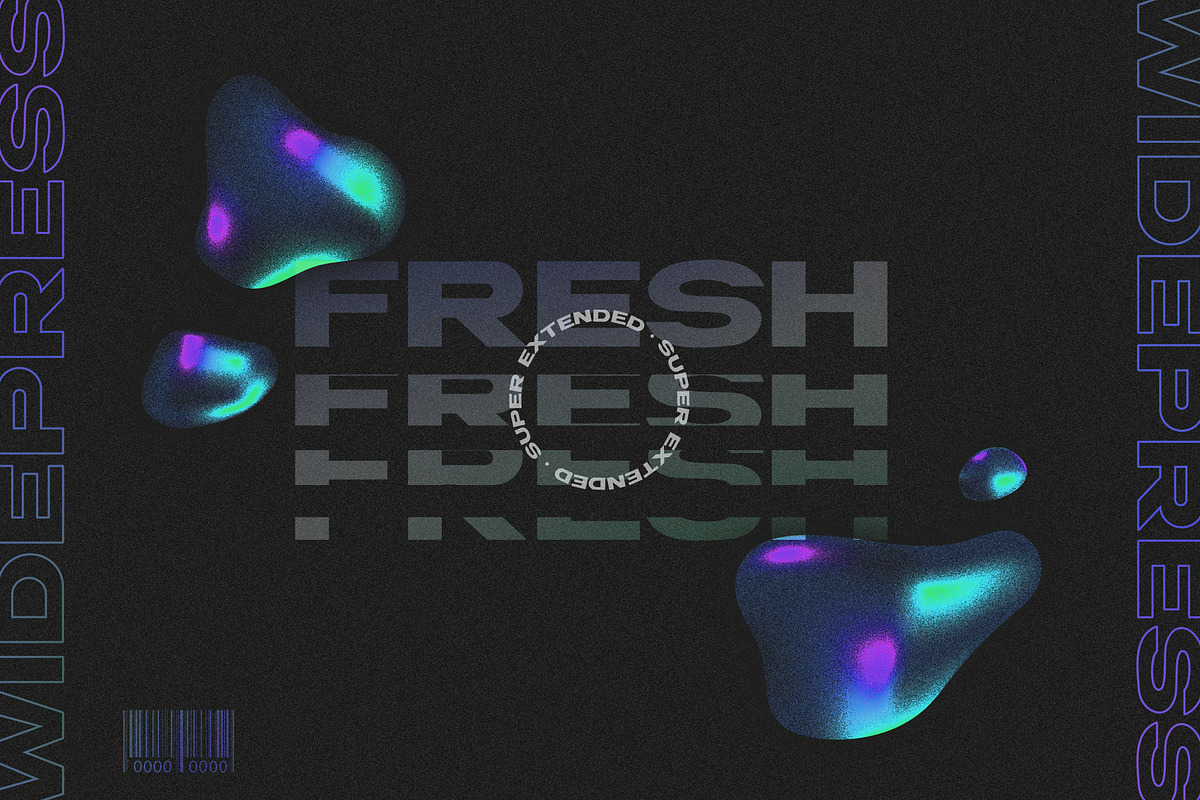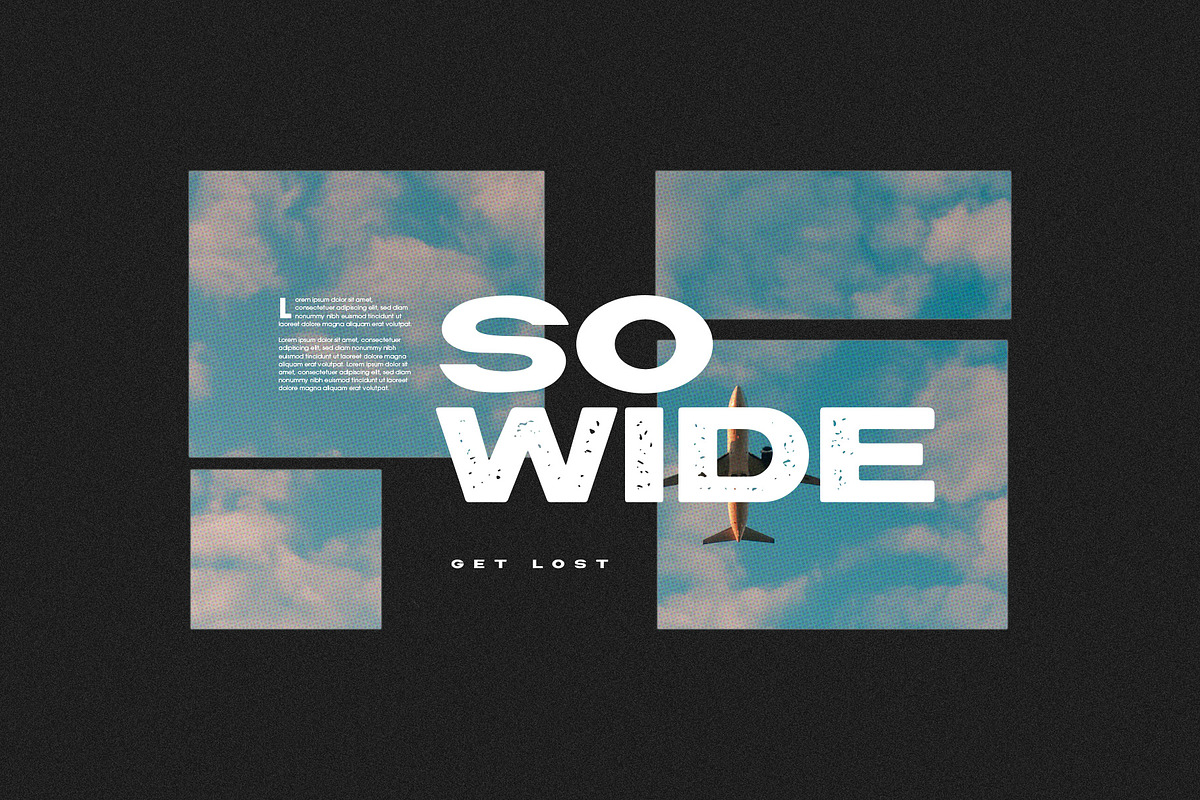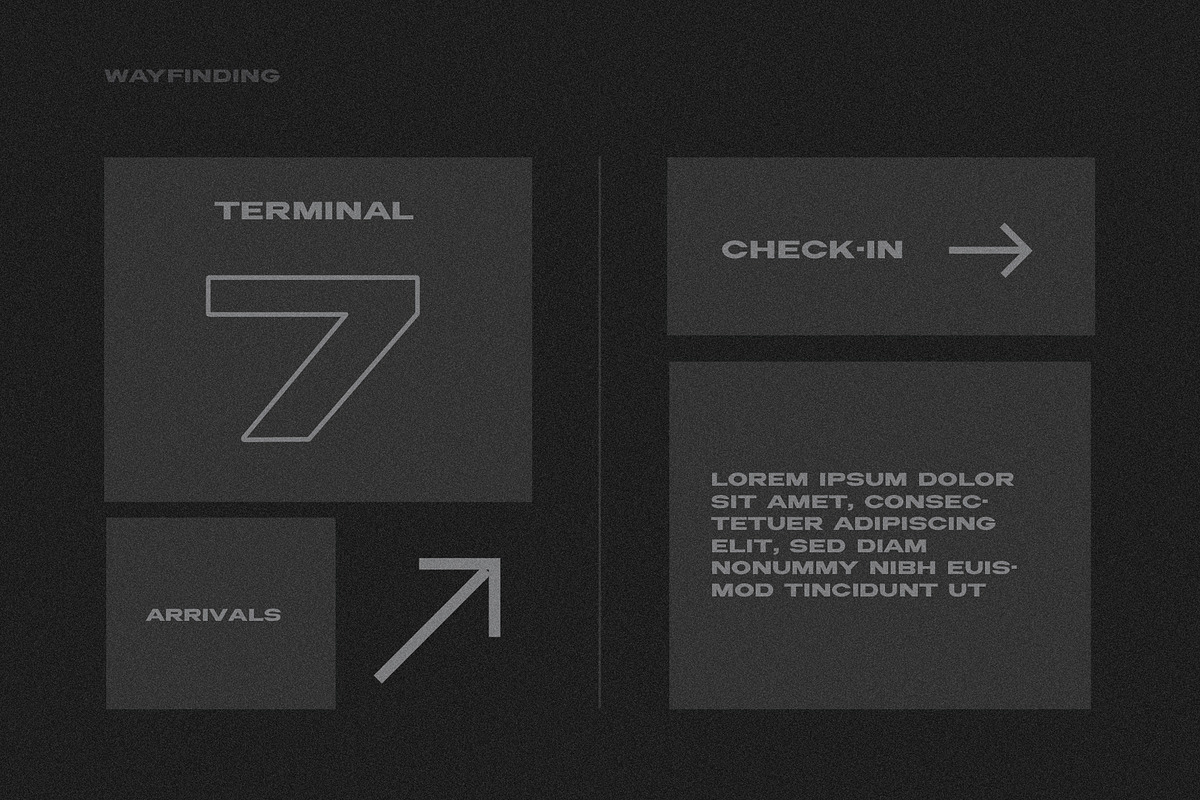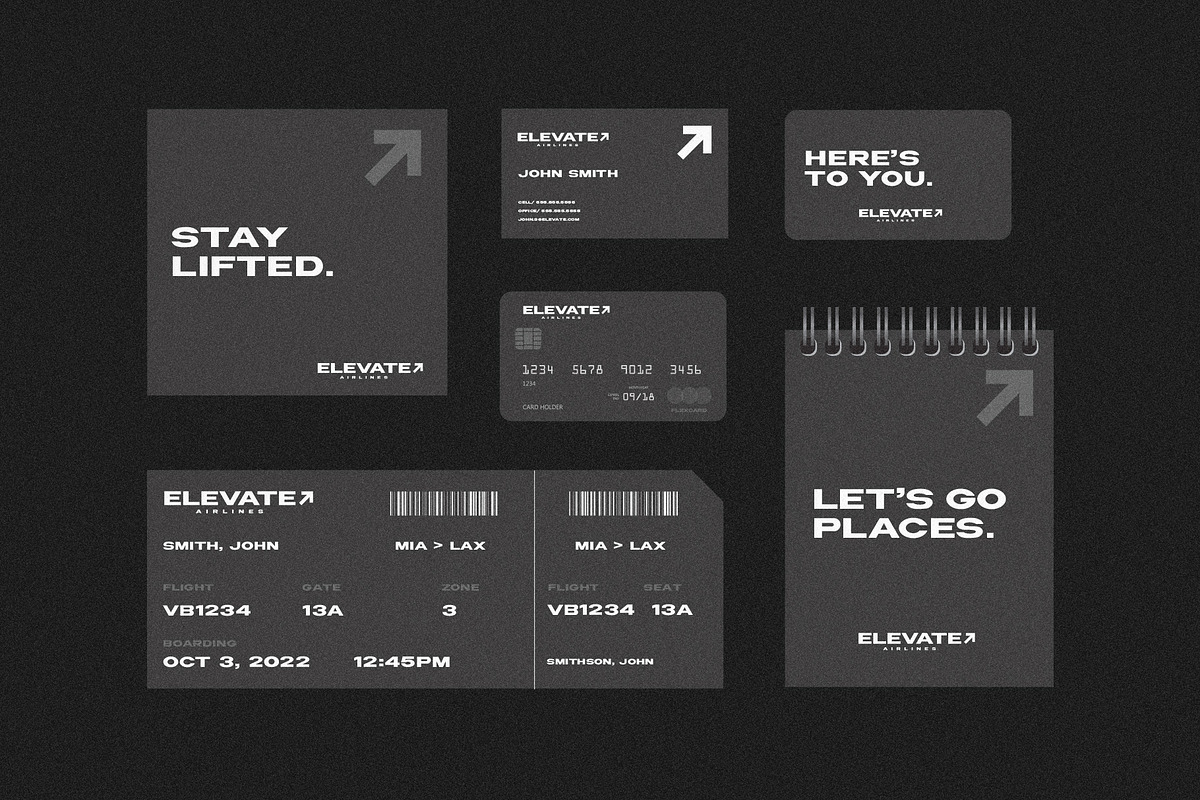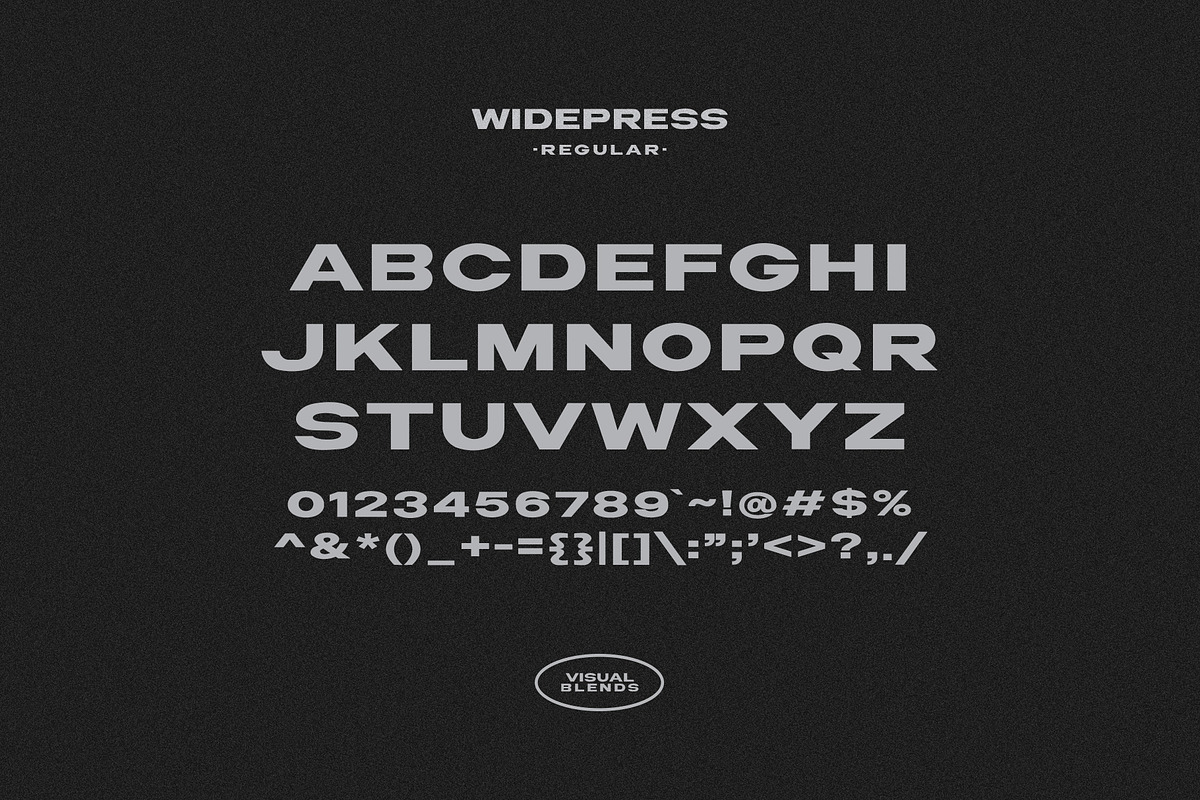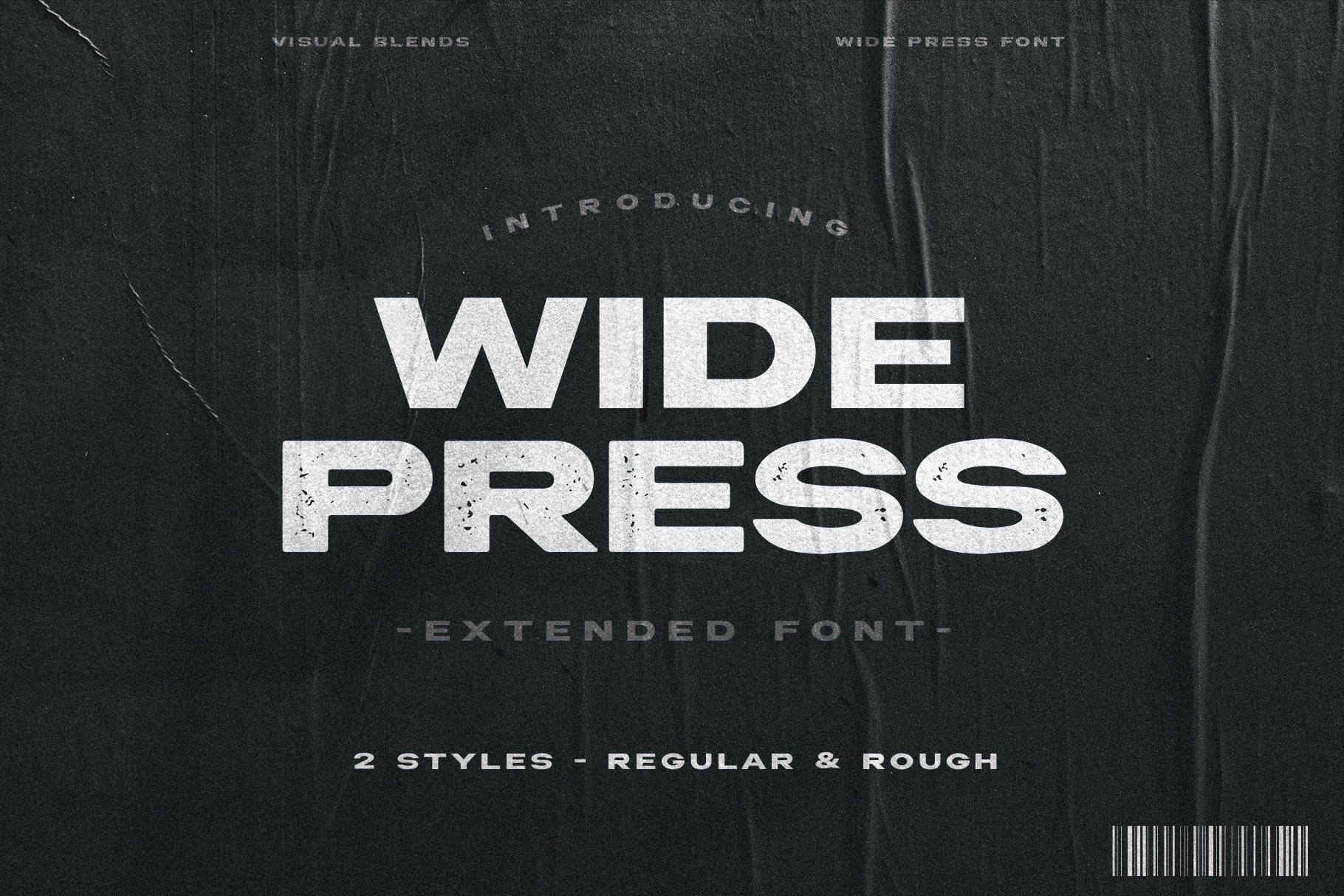
Wide Press - Extended Font
Powerful. Modern. Minimal
Wide Press is a robust extended font that includes 2 styles to add variety to your design- Regular & Rough using all caps. Wide Press was inspired by airline industry branding and infographic systems used in airports.
- Wide Press - Regular- All Caps. Solid filled font with subtle rounded edges.
- Wide Press - Rough- All Caps. Distressed with a press effect.
Usage: Extended fonts work great for making headlines pop. Use Wide Press for branding, info graphics, way finding systems, posters and more! Elevate your next project with this slick super extended font!